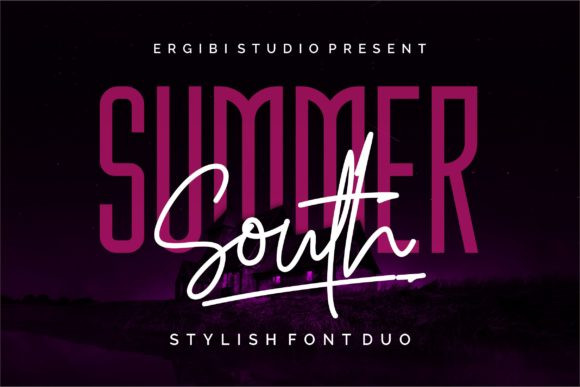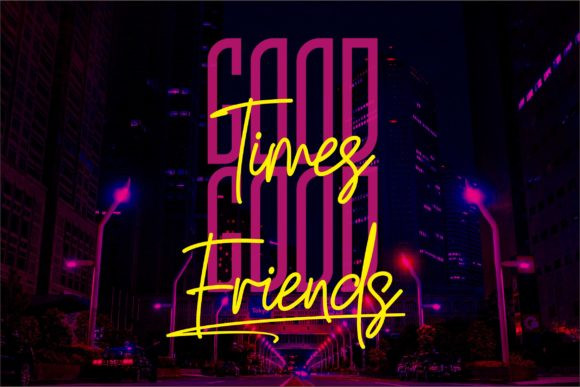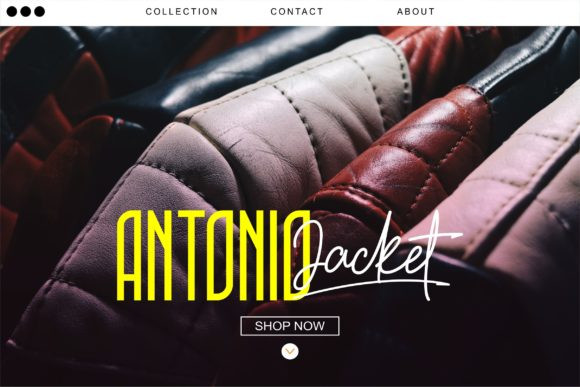
Summer South Font
Summer South is a match made in heaven. The classy and elegant letters of the Sans font perfectly complement the authentic serif’s swashes. Get inspired by its stunning font duo!